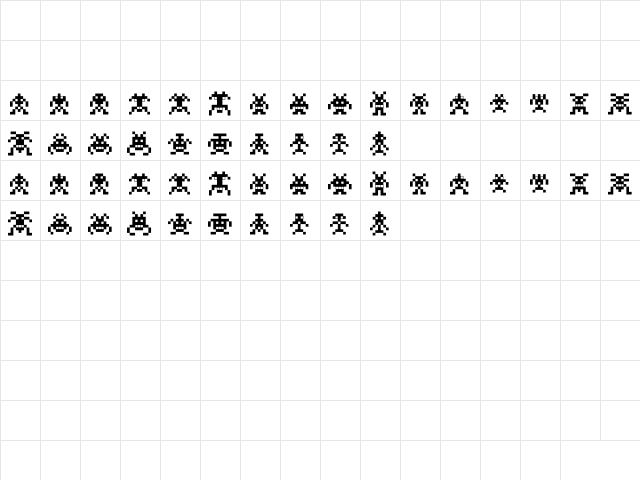
Binary Soldiers Regular
Design Context for Binary Soldiers Typeface
Binary Soldiers has the no-nonsense character of military stencilling and tactical signage, projecting authority and directness.
Designed for tactical branding, military-inspired apparel, action game UI, and utility-focused signage.
Pro Tip: Use Binary Soldiers at medium-to-large sizes where its utilitarian structure can be appreciated — the character detail gets lost at small sizes.